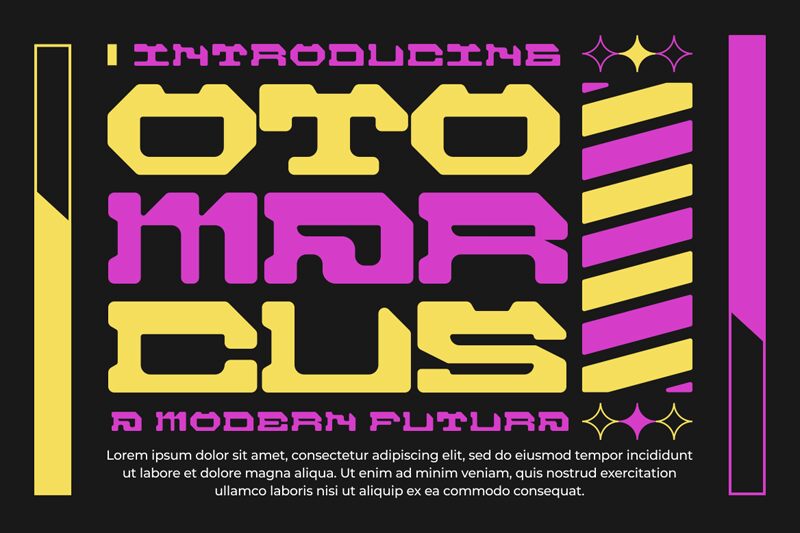
OTO MAR CUS
Oto Mar Cus font by Gilang Ternadho is a free futuristic display font with an expanded width and bold weight. The geometric letter-build achieves a distinctive appearance that is further highlighted using its retro-industrial style, straight/flat outlines, and rigid structure. It certainly holds the visual aspect you would need within any sci-fi aesthetic design.